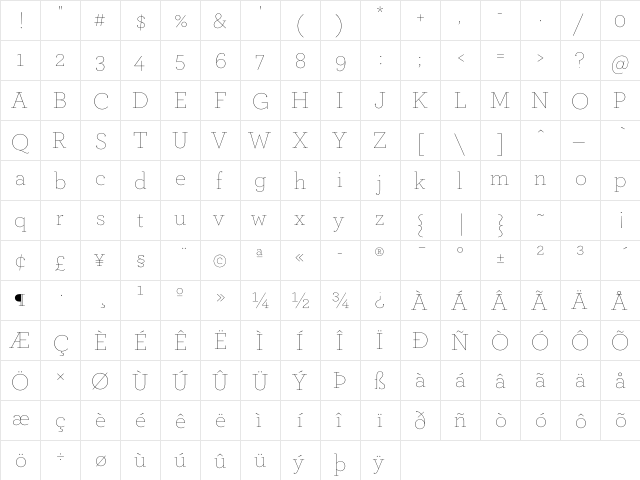
ArcherPro Thin
Design Context for ArcherPro Typeface
ArcherPro is a composed and adaptable typeface that performs quietly and consistently across a wide range of design contexts. Its slender proportions lend an understated elegance to any composition.
Pro Tip: Pair ArcherPro with a font of contrasting weight or personality to build a more expressive typographic hierarchy.